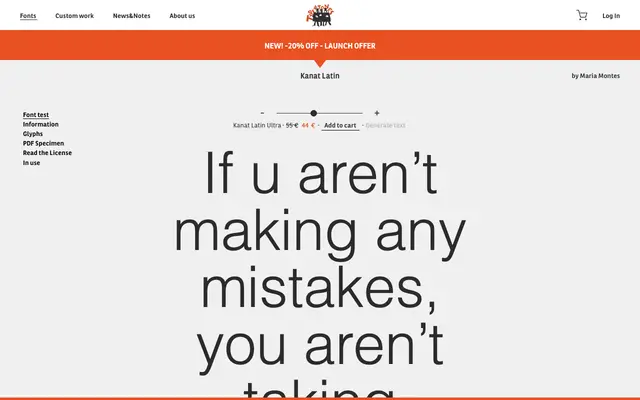
Kanat Latin
Type-ø-tones · Maria Montes
A single-weight Ultra display sans by Maria Montes, available at launch discount from Type-ø-tones.
Kanat Latin offers one style at Ultra weight, aimed squarely at display and headline use. Designed by Maria Montes and released under a launch promotion, the family covers Latin script only. The limited weight range keeps the offering focused, suited to logotypes and large-scale graphic work rather than multi-weight typographic systems.
The single Ultra weight and promotional positioning suggest a display-oriented sans designed for large-scale use rather than extended text setting.